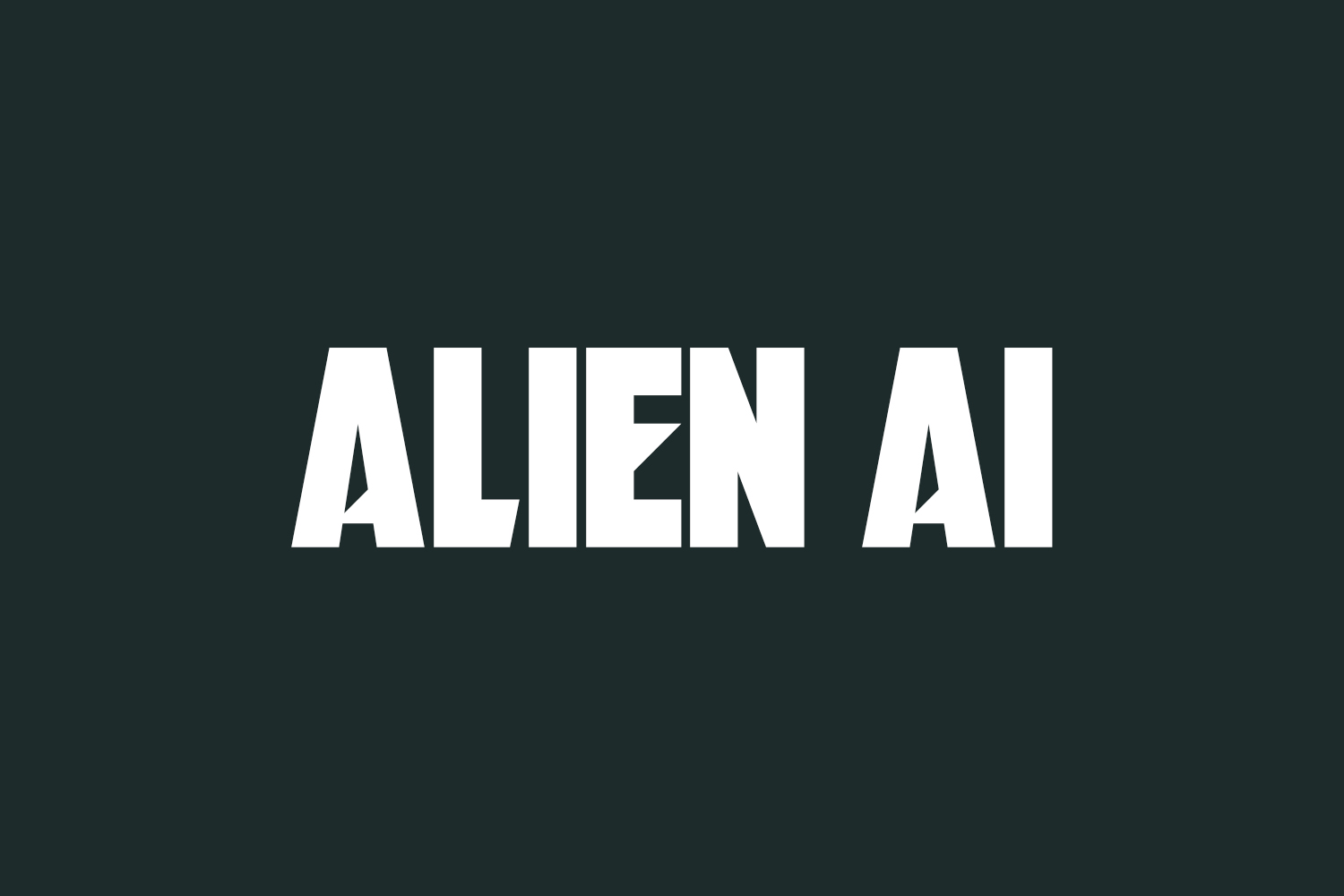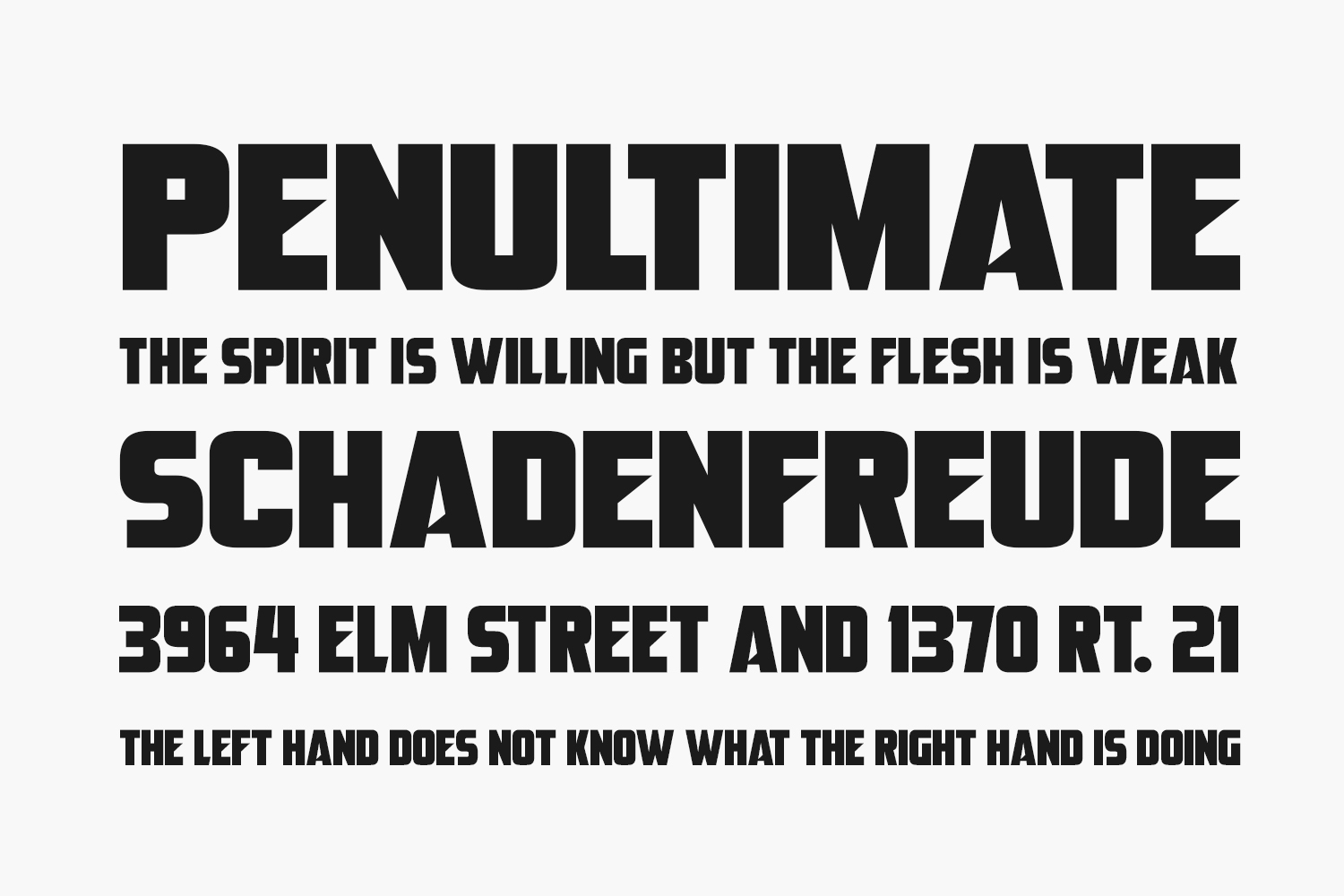
Alien AI Free Font Family is a slick and modern display font in a subtle, sci-fi style. It is the perfect font to use in fiction titles, high-tech presentations, and many more. Add it now to your collection, and make your work stand out. Alien AI Free Font is free for personal use only. Please purchase the full version for commercial use.
Designed by Darrell Flood